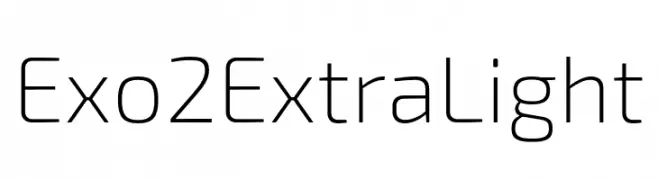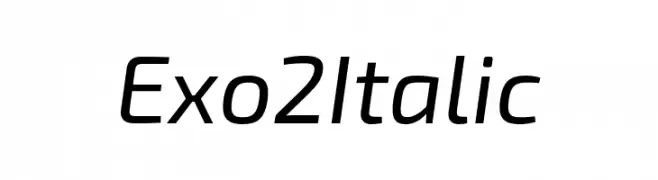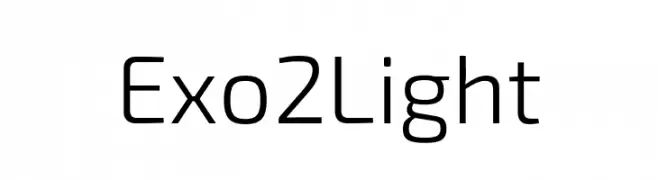
A bold, italicized font with a modern, geometric style.
A sleek, modern font with clean lines and geometric structure.
A modern, bold, and geometric font with excellent readability.
A sleek, modern font with thin, clean lines and a minimalist aesthetic.
A sleek, modern font with clean lines and geometric shapes.
A sleek, modern sans-serif font with extra-light weight and italic style.
A modern, bold, and italic font with a sleek and dynamic style.
A modern, italicized font with a clean, geometric design.
A modern, semi-bold italic font with a sleek and compact design.
A clean, modern font with slender, consistent strokes and an elegant appearance.